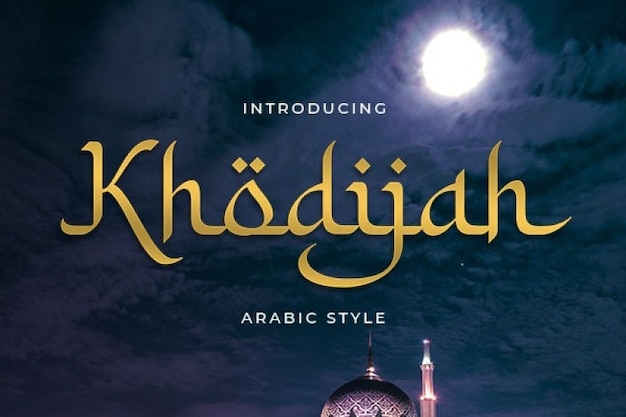
Khodijah Font
This Khodijah font looks stylish and elegant with its swashes and arabesque feel. Manually designed with a flat-pen and refined technique, it radiates with distinction, exoticism and personality. This enchanting serif typeface includes uppercase and lowercase letters. It's a great option for any format displaying content about Islam or the Middle-East. Download it from Freepik now!